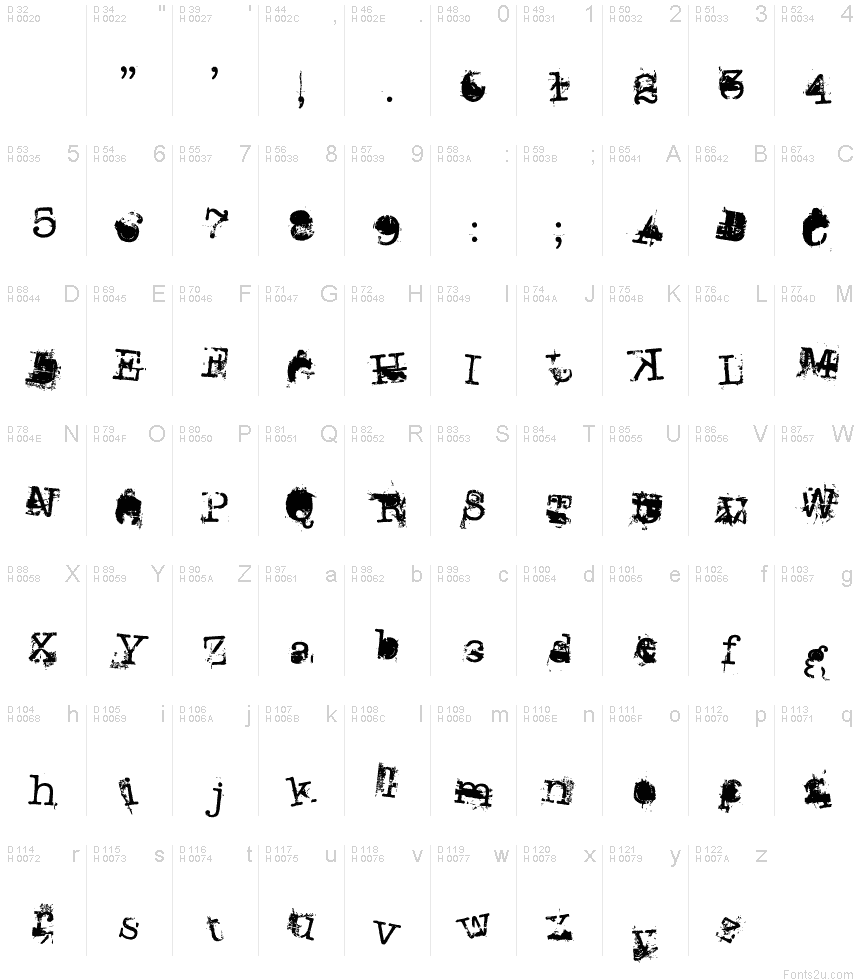
Don Giovonni Makin Enemies
Don Giovonni Makin Enemies font by Pennyzine is a free distorted display typeface that looks like it was stamped with filthy, over-inked rubber letters and left to bleed. Each character leans and jitters, ringed with splatters and smudges, giving text a raw, photocopied-from-a-basement-zine energy. It doesn’t whisper; it scrawls across the page like a protest sign or a scratched-up gig flyer.
This free font shines on punk and metal posters, underground zines, horror titles, streetwear graphics, album covers, and grimy event flyers that need to feel loud and unruly. Using Don Giovonni Makin Enemies in big sizes lets the splatter texture really show; pair it with a plain, tight sans serif for body text so your chaos has something clean to push against.